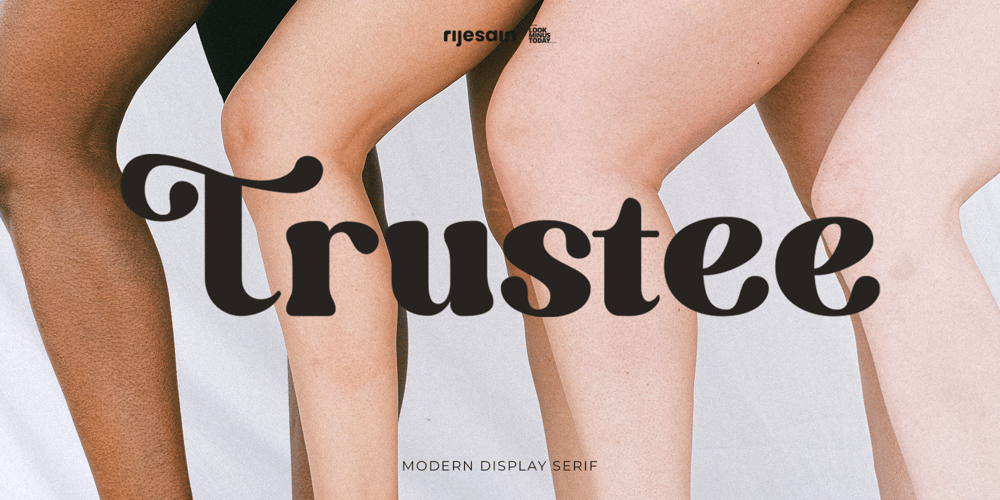
Trustee Font Family was designed by Arif Rijal and published by Look Minus Today. Trustee contains 1 styles and family package options. Trustee Modern Retro Bold Serif . That has a unique style & luxurious look. is great for logos, editorial, web design, craft projects, shirts, decoration, wedding invitations, packaging, stickers, social media, quotes, magazines and more!. The unique sharp serifs mixed with thin strokes give off a bold mid century architectural vibe.Trustee features: · Alternates And Ligatures · Uppercase And Lowercase · Numerals & Punctuation · Accented characters · Format File: OTF,TTF,WOFF,WOFF2 · Multilingual Support · Unicode PUA Encoded While using this product, if you encounter any problem or spot something we may have missed, please don’t hesitate to drop us a message. We’d love to hear your feedbacks in order to further fine-tune our products. Thanks and have a wonderful day